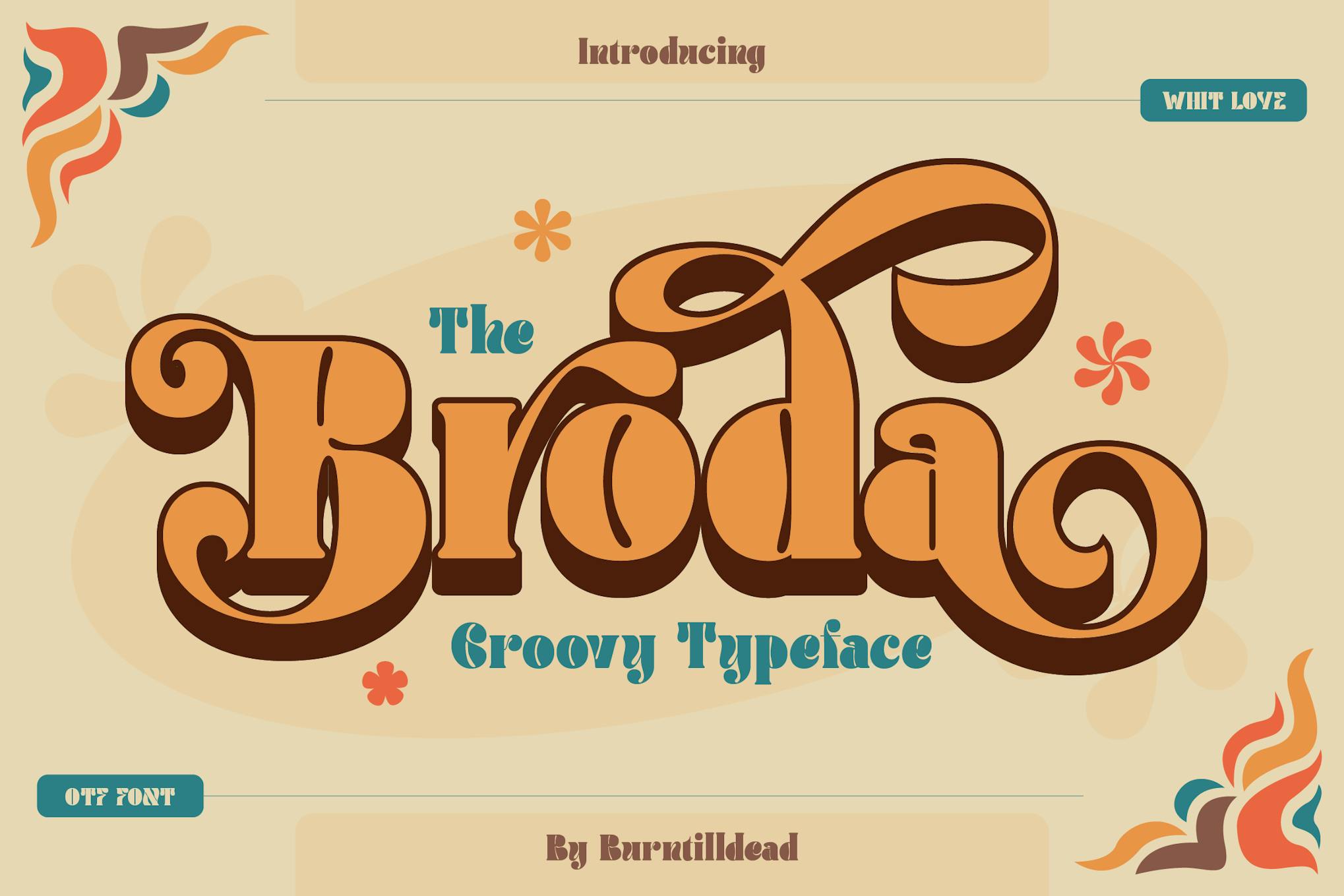
Broda Font
The Broda Font is perfect for bold brand identities, confident logo designs, strong headline typography, powerful advertising campaigns, dynamic poster graphics, assertive business communications, commanding signage systems, impactful web headers, robust packaging design, and authoritative corporate materials.
What makes the Broda Font so exciting is its commanding presence and versatile strength that delivers consistent visual impact across all applications while maintaining exceptional readability and professional appeal. This powerful typeface features robust letterforms, confident character spacing, and solid construction that creates an unmistakable authority perfect for brands demanding reliable performance and strong visual communication. The font's bold personality and dependable functionality make it an exceptional choice for businesses seeking to communicate strength, reliability, and professional confidence with consistent visual excellence and enduring quality.
The Broda Font family includes comprehensive weight variations, featuring Light, Regular, Medium, Bold, and Black options, plus matching italic styles. Each weight maintains the signature strong appeal while offering different levels of visual intensity and typographic flexibility, providing designers with complete control for creating powerful brand hierarchies and versatile communication systems across diverse applications.
The robust design characteristics of Broda Font demonstrate expert bold typography craftsmanship, with each character optimized for maximum impact, excellent legibility, and visual consistency across all sizes and applications. The font's comprehensive character set includes international language support, professional punctuation, business symbols, and complete numeric sets, ensuring seamless functionality for global business operations and diverse professional communications.
Expertly engineered for both digital and print applications, this remarkable font maintains perfect clarity and strong presence across all media formats and business contexts. From large-scale corporate signage to detailed business documents, Broda Font performs exceptionally while preserving its distinctive bold character and professional authority.